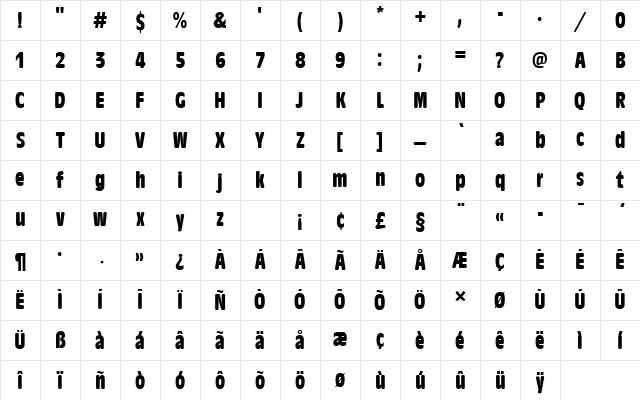
AntiqueOliTBolConRo1 Regular
Design Context for AntiqueOliTBolConRo1
AntiqueOliTBolConRo1 wears its vintage influences proudly, with letterforms that recall mid-century signage, classic packaging, and nostalgia-driven design.